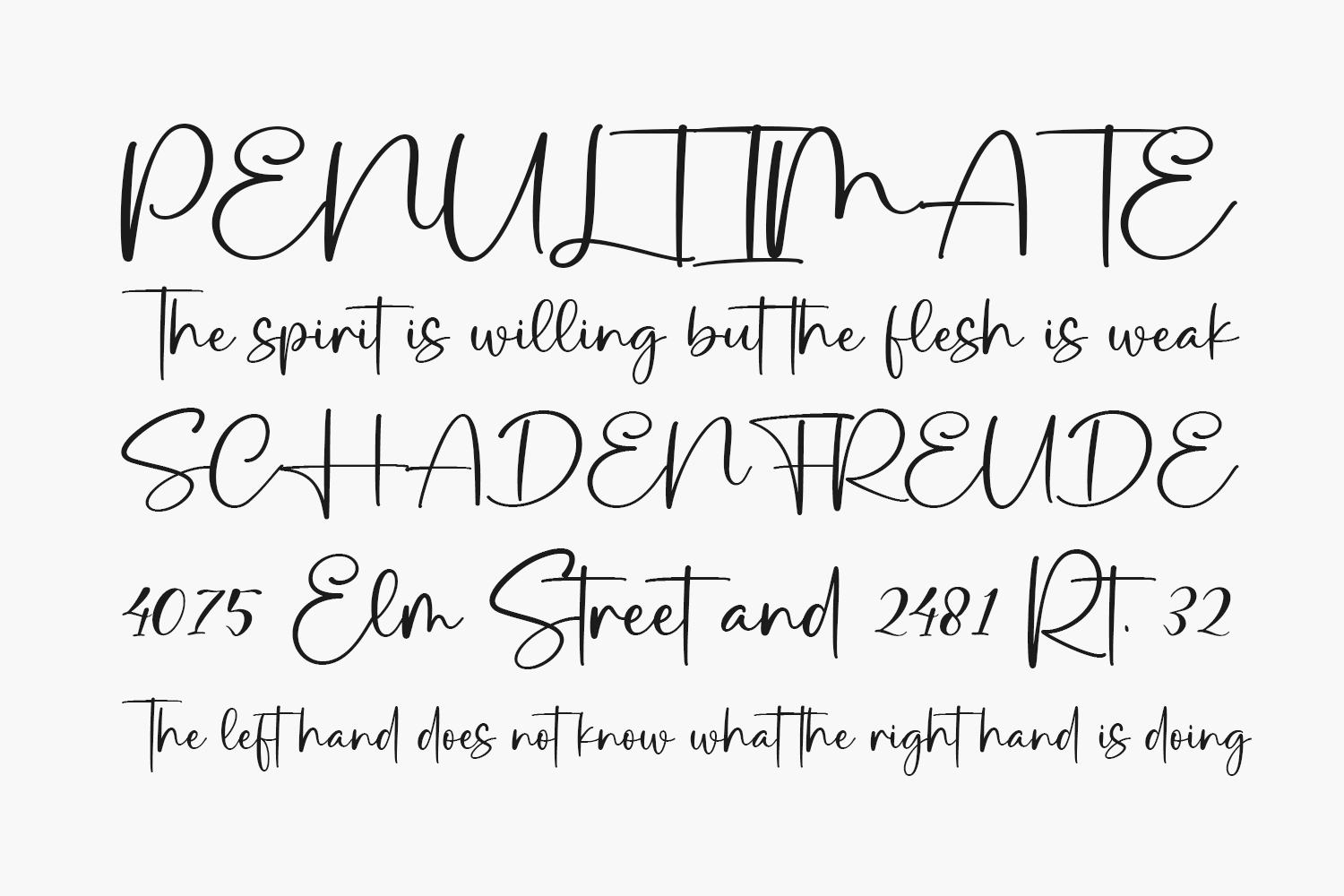
Galantis Free Font is an exquisite and graceful script font. It adds a touch of sophistication and refinement to any design. Its delicate lines and sweeping curves exude elegance, making it a perfect choice for wedding invitations, branding materials, and other projects that require a touch of sophistication. The font’s timeless beauty and timeless charm make it a versatile choice for designers looking to add a touch of class and grace to their work. Whether used for print or digital designs, Galantis Free Font is a font of distinction, perfect for creating projects that demand sophistication and grace.
Designed by Ramli Setiadi